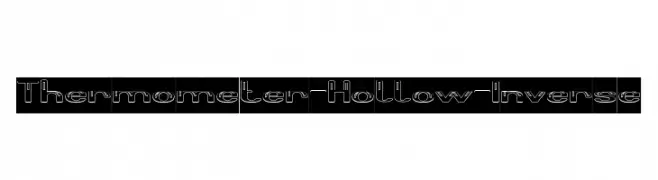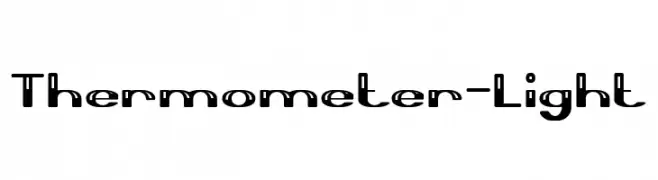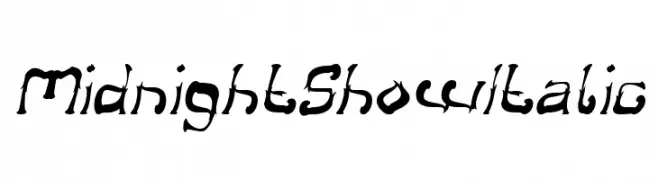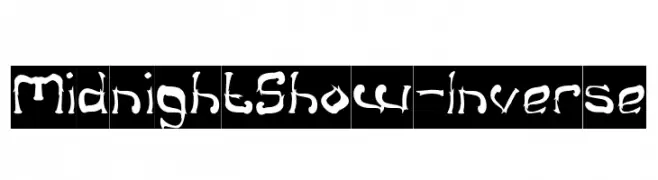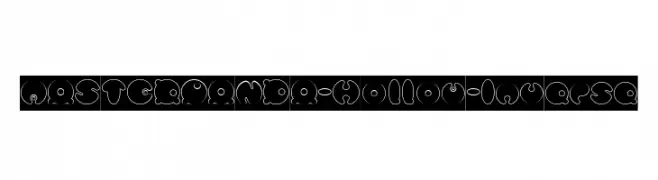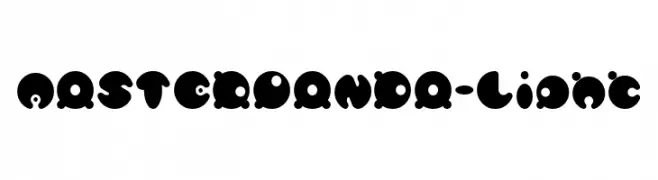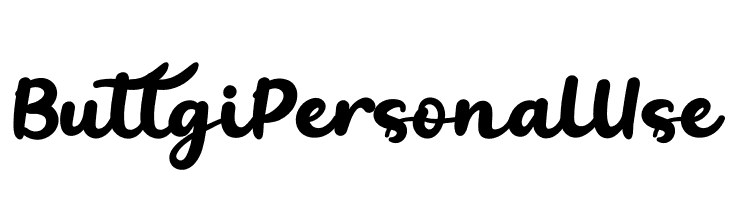
A modern, hollow, inverse font with bold outlines and geometric structure.
A modern, hollow font with geometric outlines and rounded edges.
A bold, rounded font with a playful and modern style.
A bold and italic font with rounded strokes and a modern, dynamic style.
A modern, playful font with geometric and rounded elements, perfect for creative projects.
A bold, italic font with a modern and energetic style.
A dynamic, brush-like font with an edgy, artistic style.
A bold, decorative font with an artistic, brush-like style.
A playful, hollow bubble-like font with a whimsical inverse design.
A playful, bubble-like font with rounded characters and whimsical cutouts.